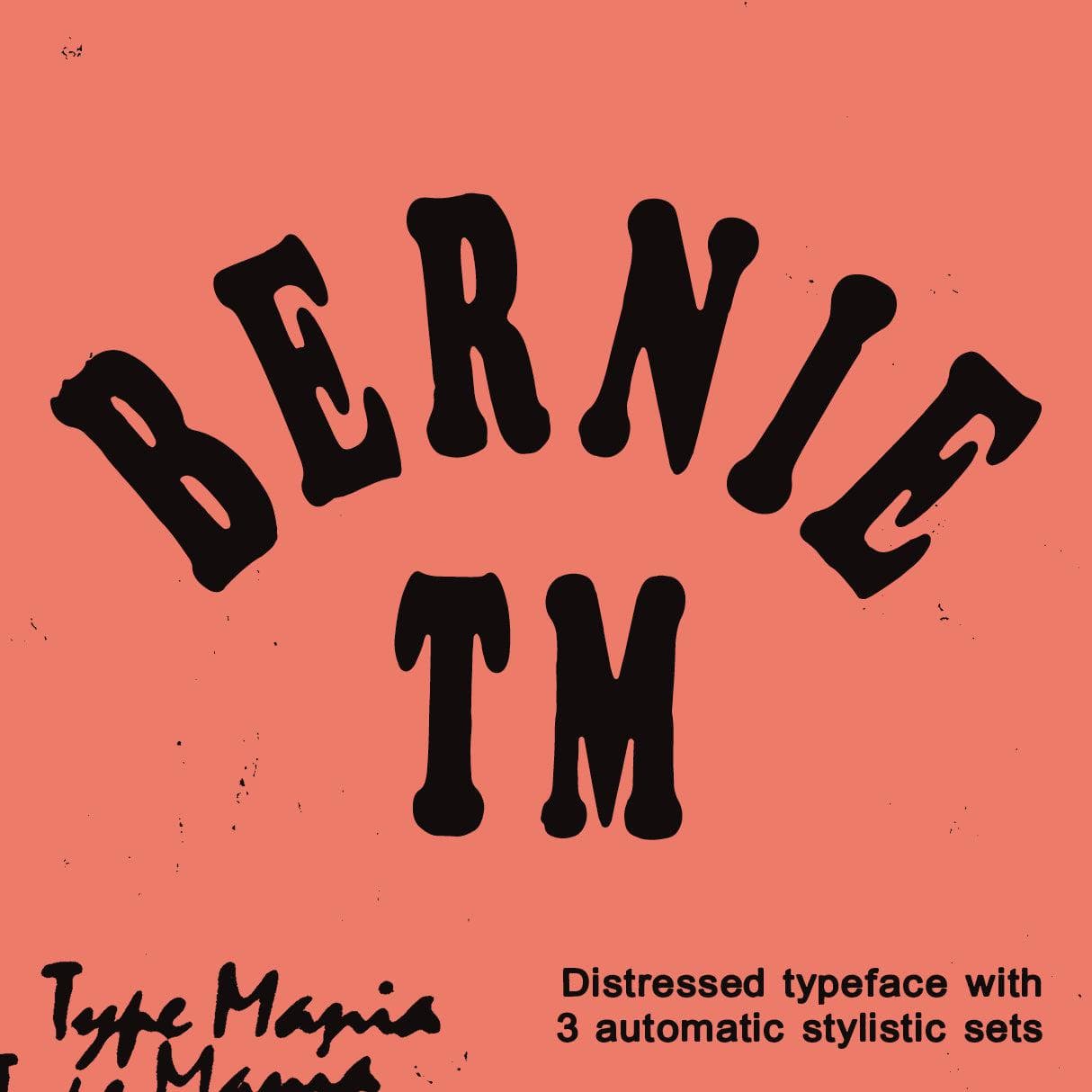
<p>Ask for <strong>Bernie TM</strong>🫡 With three distinct stylistic sets rotating automatically, our font offers versatility, lending each composition its own unique flair with a natural, homegrown appeal. Whether for print or digital, it's guaranteed to cozify any project.</p> <p><strong>Zip includes</strong></p> <ul> <li>OTF file</li> <li>TTF file</li> <li>WOFF2 file</li> </ul> <p><strong>OpenType features</strong></p> <ul> <li>3 stylistic sets</li> <li>The font is programmed to automatically shift between the stylistic sets</li> </ul> <p><strong>Languages</strong></p> <ul> <li>Basic Latin</li> <li>Western European</li> <li>Euro</li> <li>Central European</li> <li>Pan African Latin</li> </ul> <p><em>Graphic Design is Easy (with Type Mania)®</em></p>